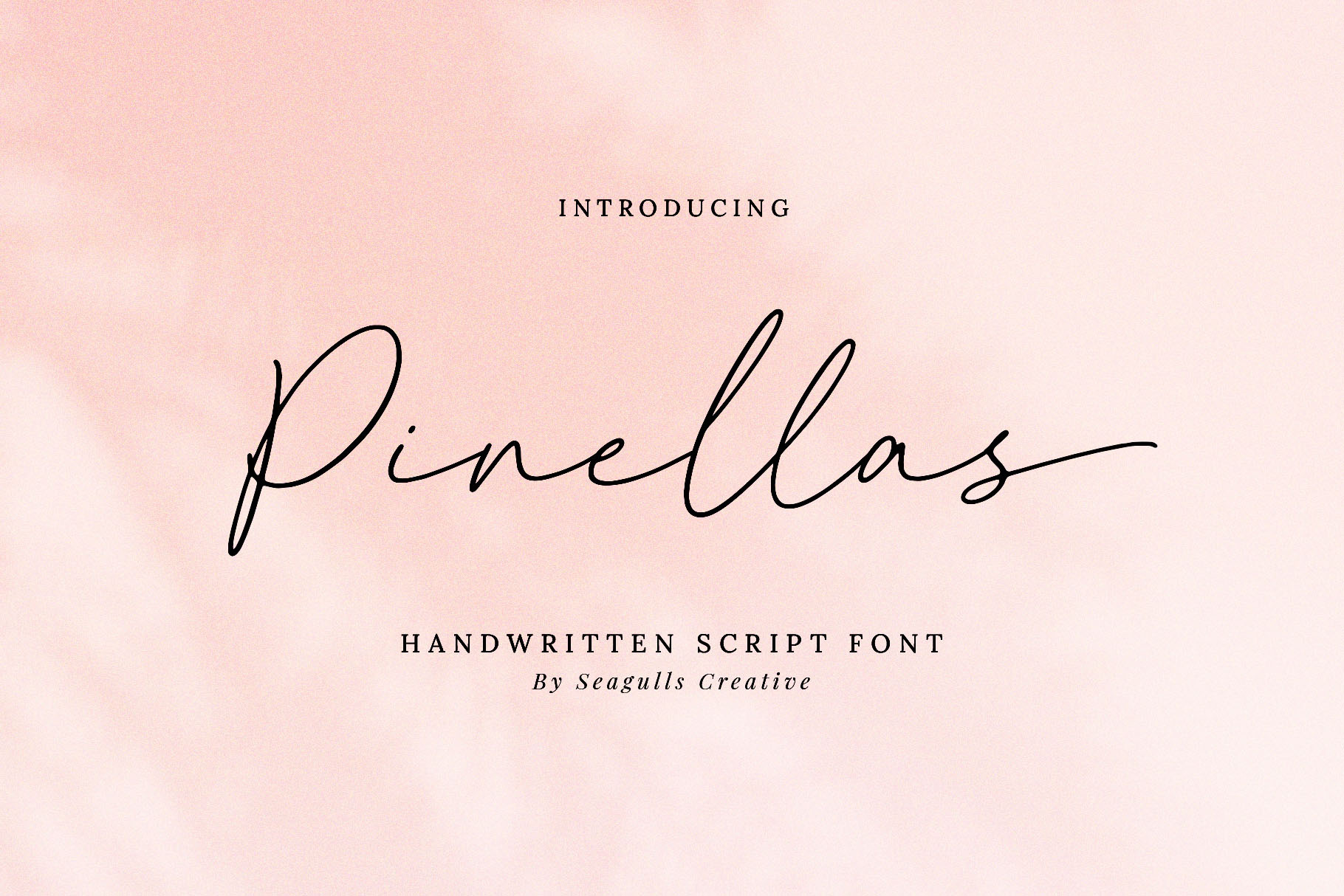
Pinellas Handwritten Script Font
Hello everyone, I would like to introduce Pinellas a handwritten script font.
Pinellas can be used for a variety of projects such as branding, photography, invitations, stationery, wedding designs, social media posts, advertising, product packaging, product design and other romantic projects.
- Letters, numbers, symbols, punctuation, ligatures and ending swashes
- Fonts include multilingual support